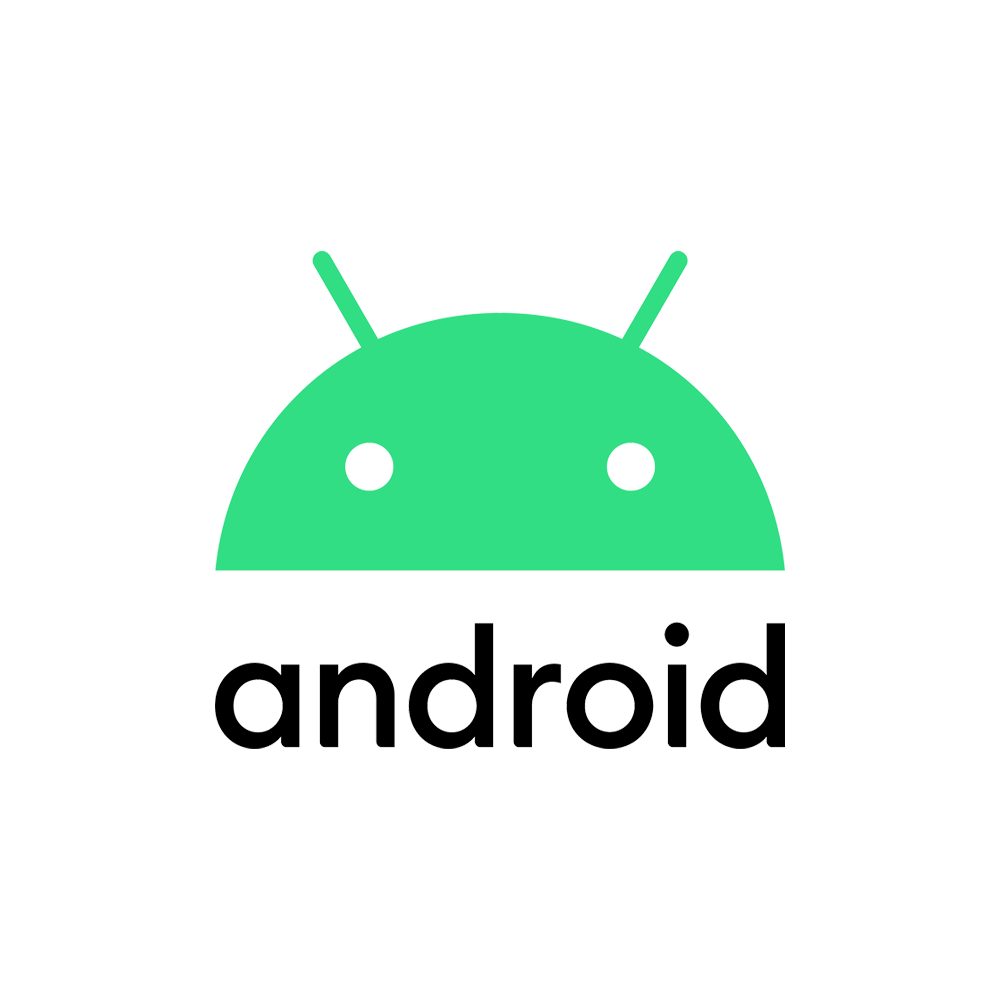
Android Font
The latest Android logo uses a font called Android Euclid which is based off Euclid by Swiss Typefaces.
The old Android logo featured a customized font, but there is a replica called Android by Isaac K which is free to use.